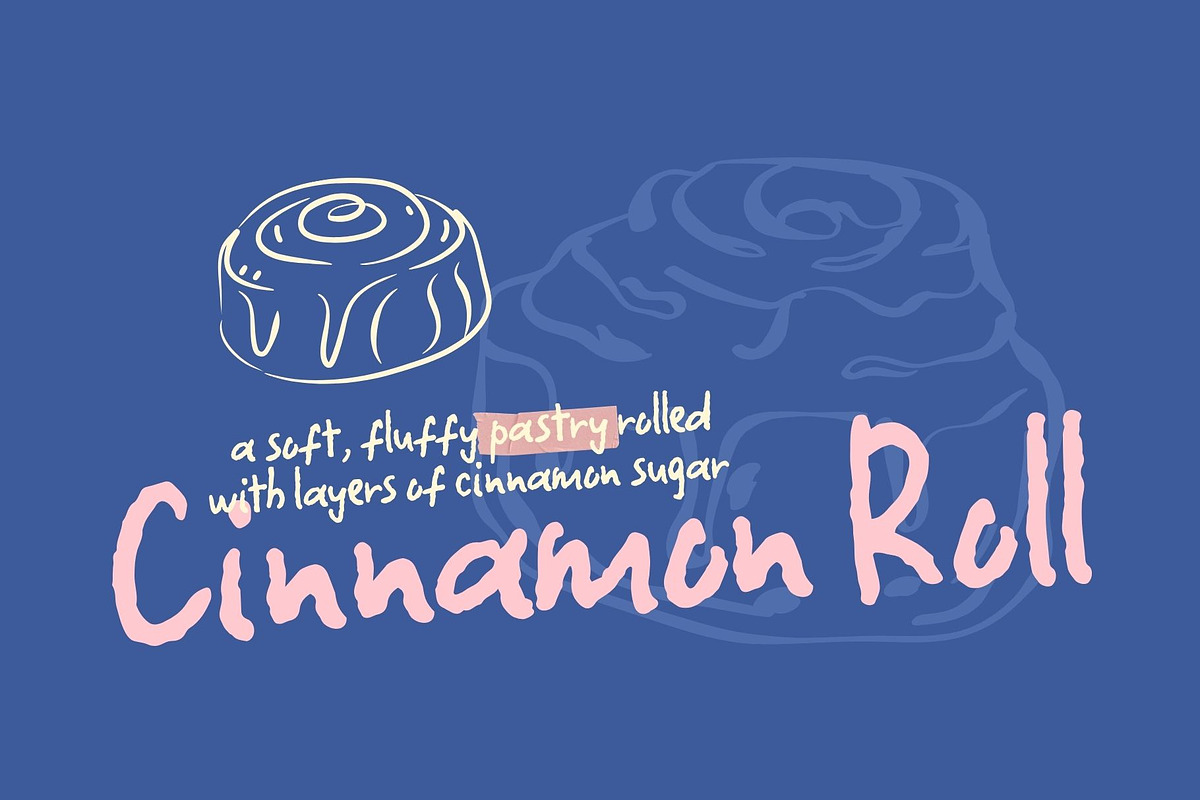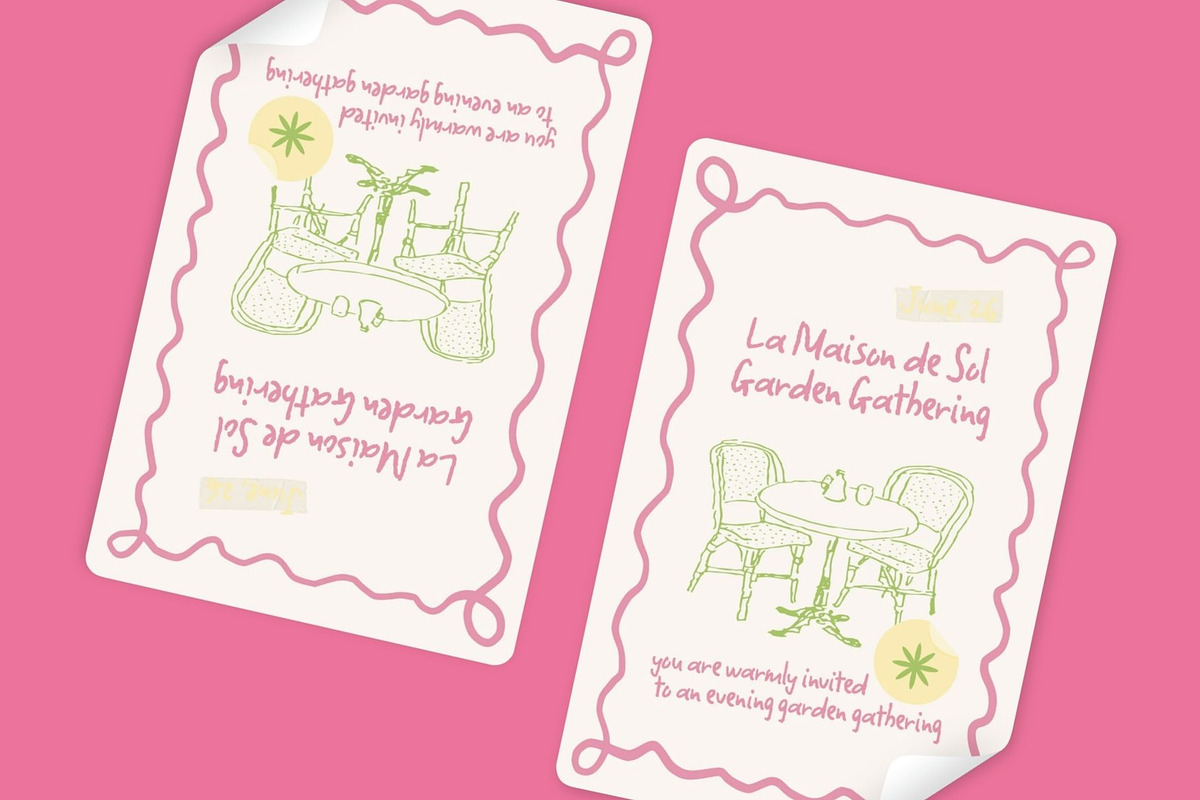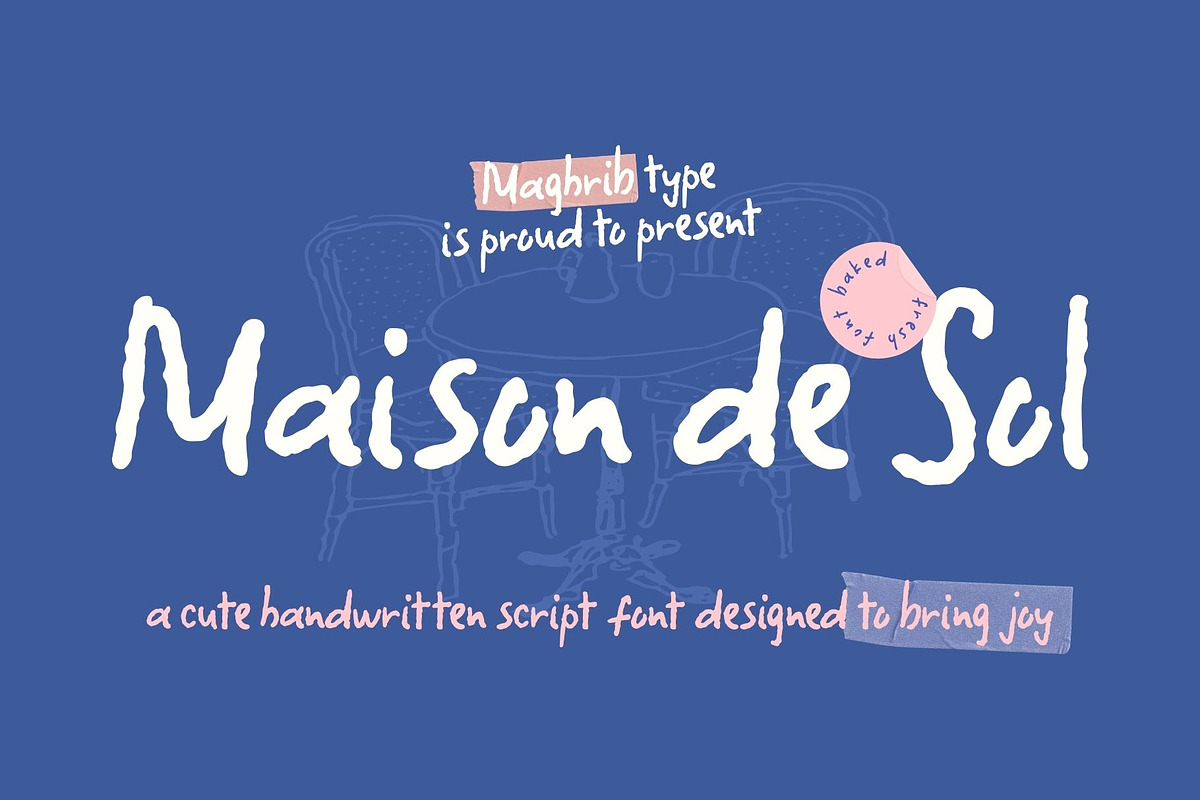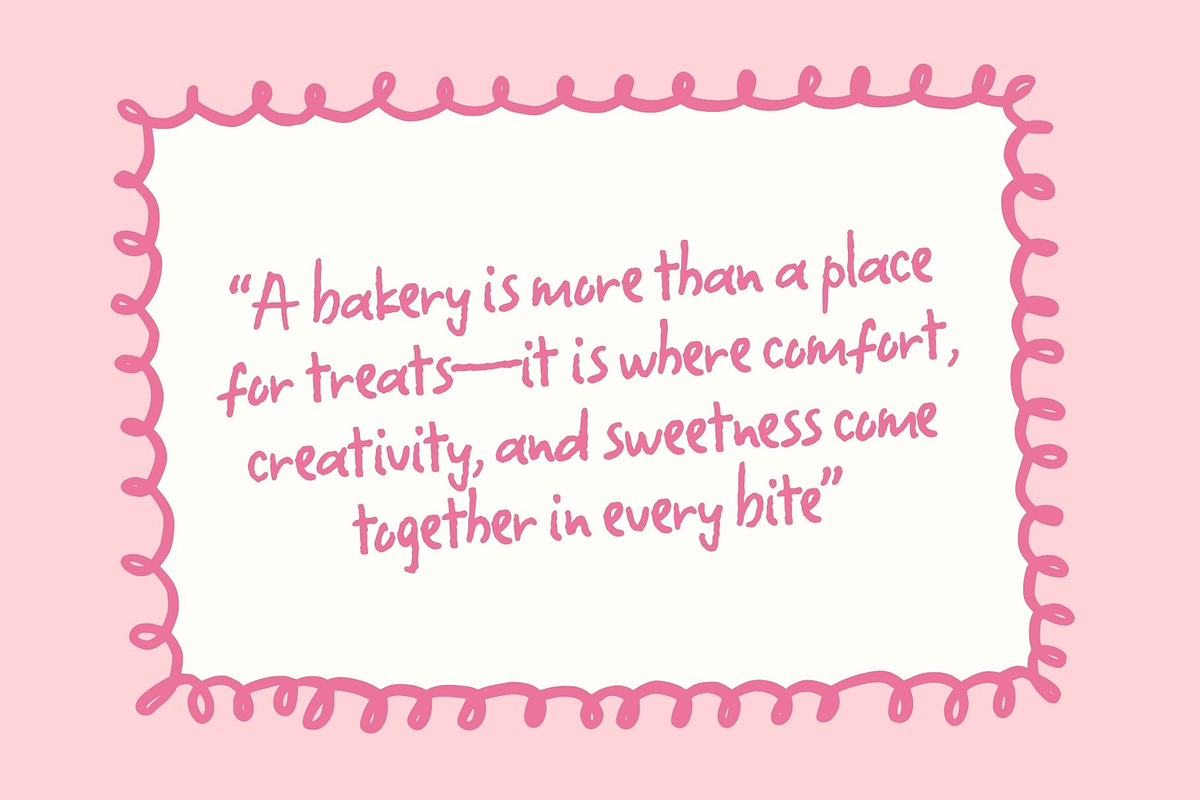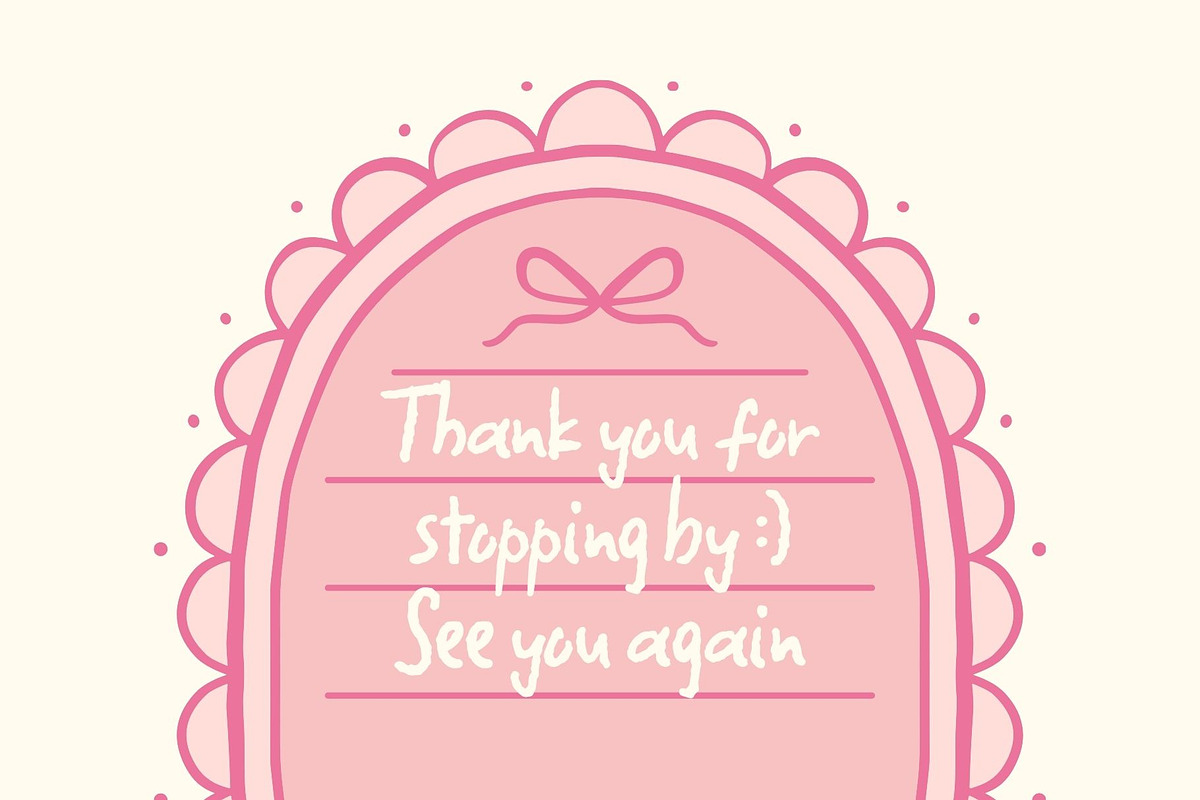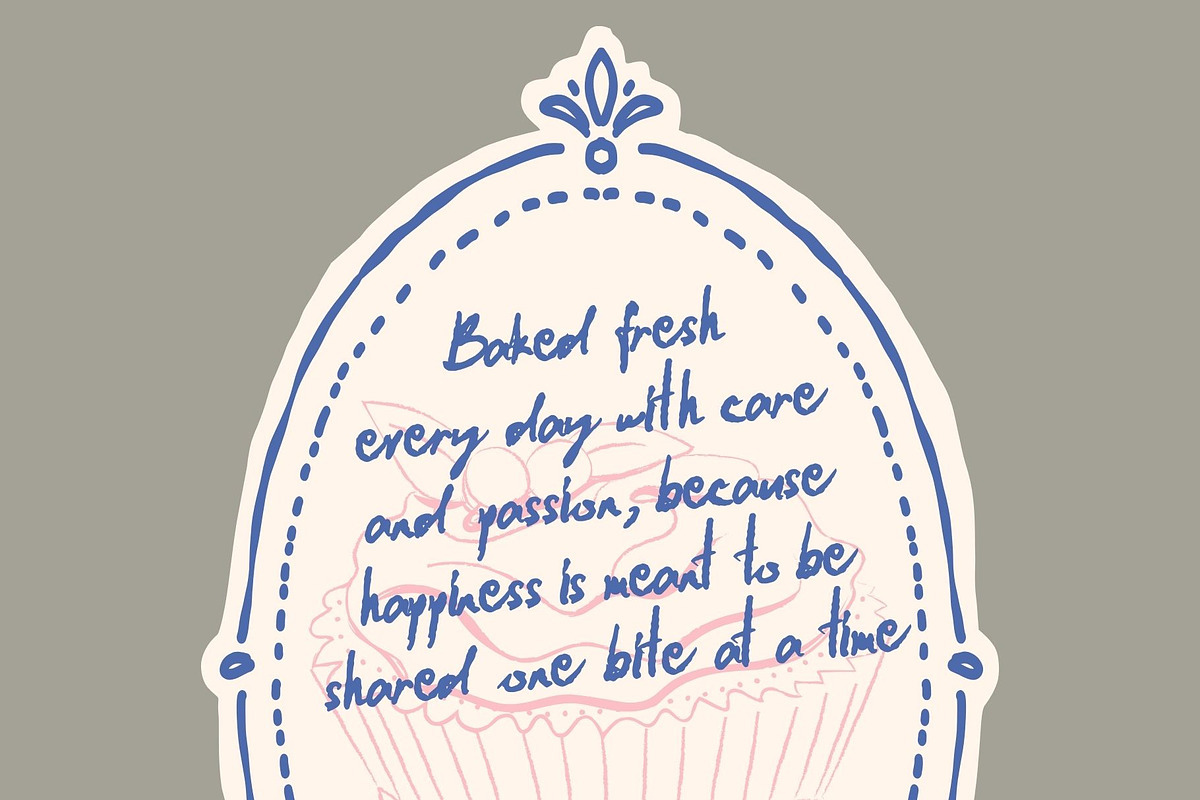
Maison De Sol Handdrawn
Maison De Sol – Handdrawn Font Duo
Introducing Maison De Sol, a charming and expressive handdrawn font duo crafted to bring warmth, creativity, and personality to your designs. Inspired by cozy cafés, handwritten notes, bakery menus, and joyful everyday moments, Maison De Sol combines an authentic handwritten script with a playful handdrawn sans serif, creating the perfect pairing for modern branding and creative projects.
The script font features natural strokes, organic imperfections, and a friendly handwritten flow that feels personal and inviting. Complementing it is a handdrawn sans serif that adds balance, versatility, and readability while maintaining the same handcrafted character. Together, they create a harmonious font duo suitable for both display and supporting text.
Whether you're designing branding materials, packaging, social media graphics, greeting cards, invitations, product labels, posters, or lifestyle content, Maison De Sol delivers a sweet and approachable aesthetic that helps your message feel genuine and memorable.
Maison De Sol Script
Maison De Sol Sans Serif
Branding & Logo Design
Bakery & Café Branding
Social Media Posts
Quotes & Typography Art
Greeting Cards
Wedding Invitations
Children's Products
Craft Projects
Posters & Editorial Design
Lifestyle & Handmade Brands
Maison De Sol is designed for creators who love authentic handmade typography and want to add a touch of warmth, sweetness, and creativity to every project.